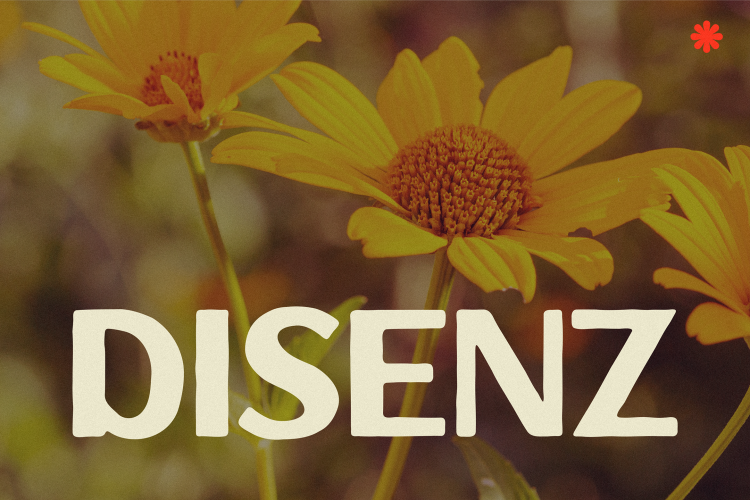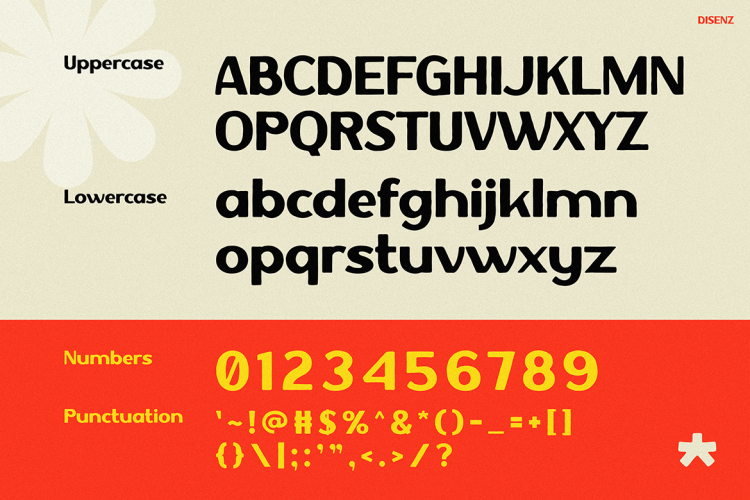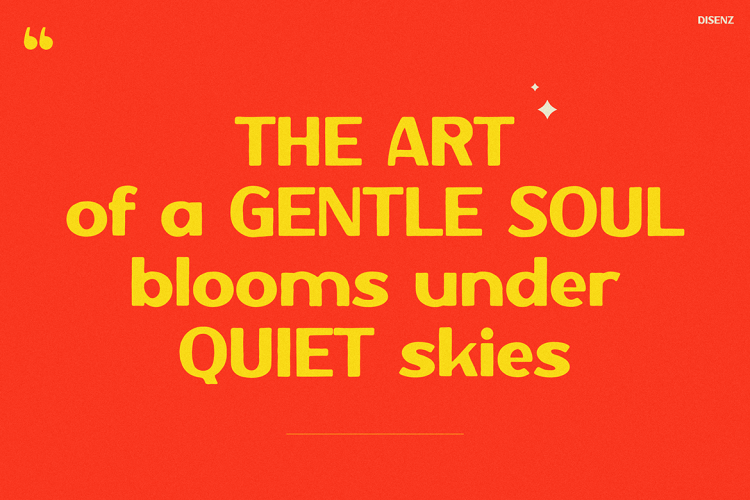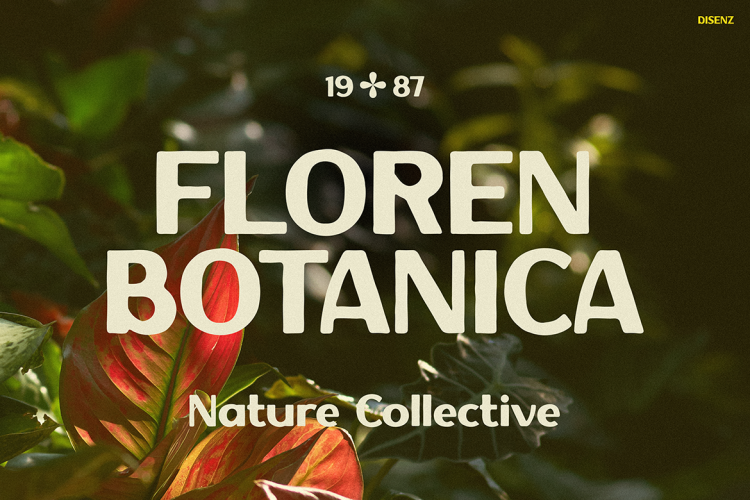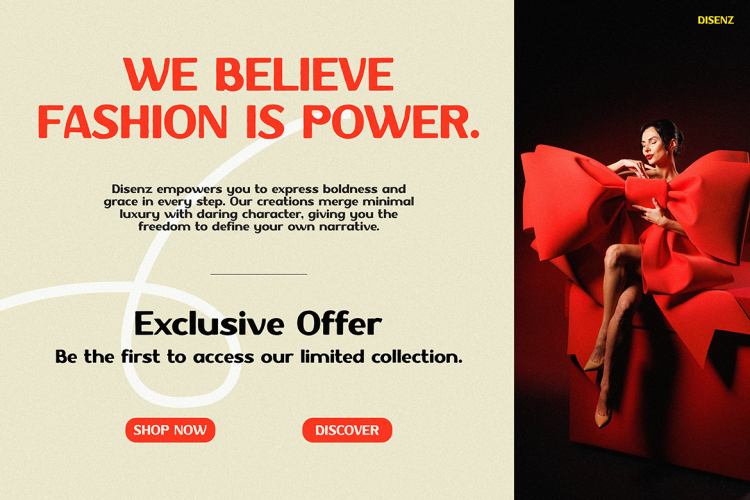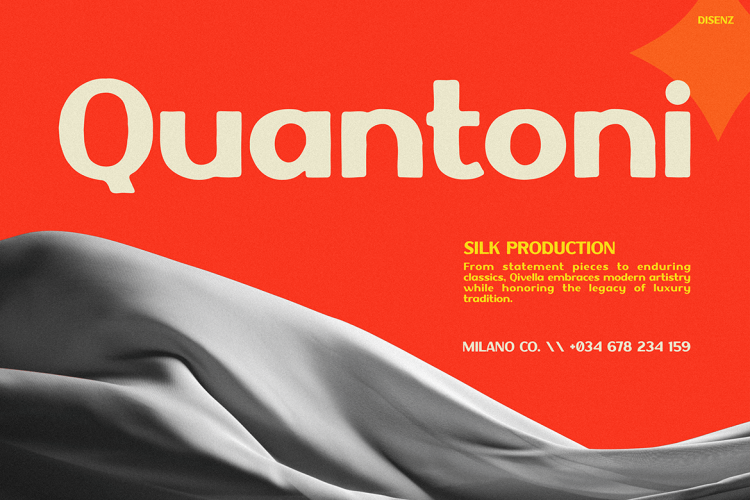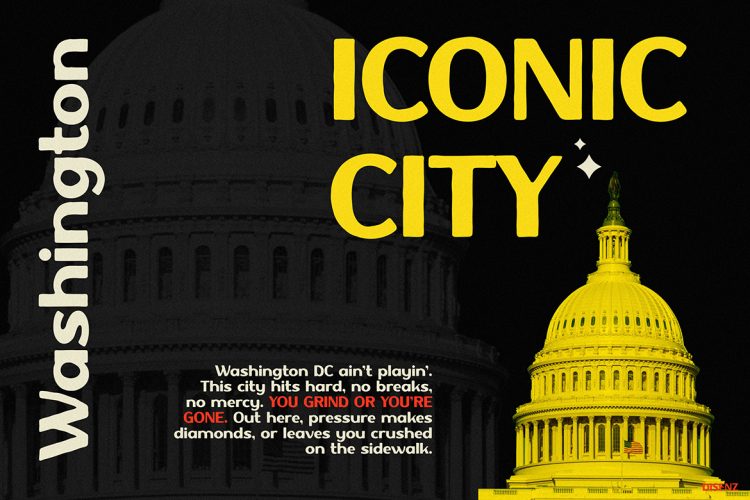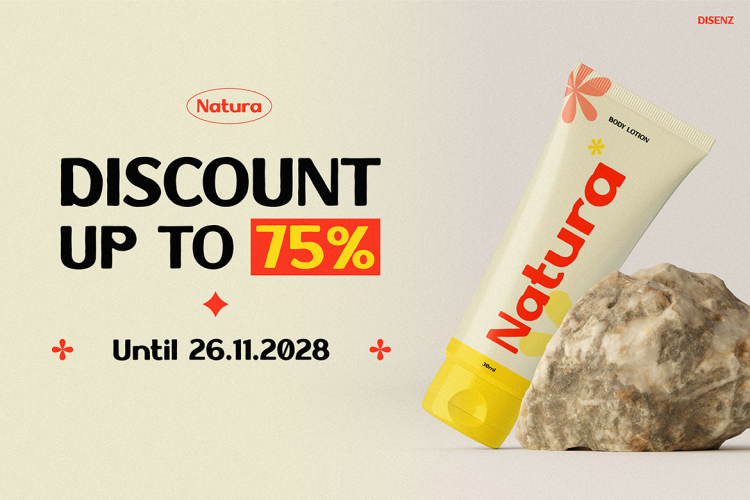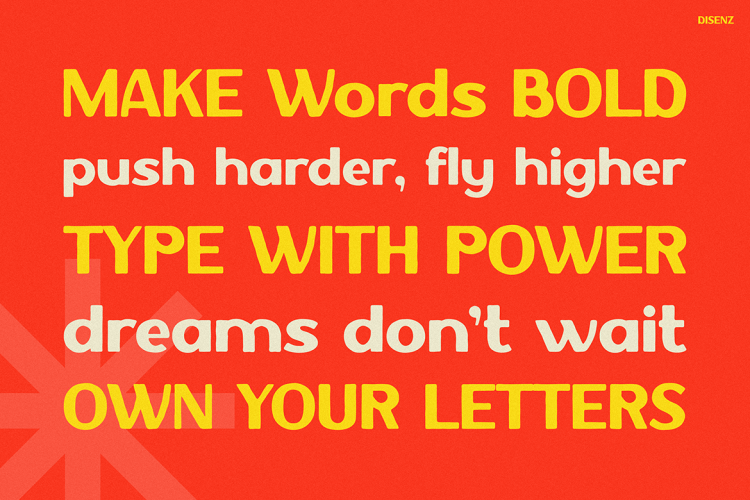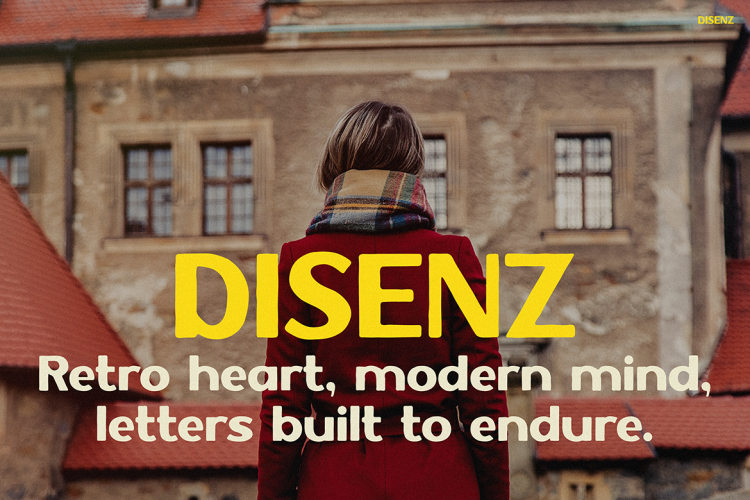
Retro Font DISENZ โ Bold Retro Elegance for Modern Visionaries
Retro Font DISENZ captures the essence of timeless design with a powerful, confident aesthetic. Inspired by the warmth of vintage typography and the clarity of modern minimalism, DISENZ stands out through its smooth curves, solid structure, and balanced proportions. Every letter radiates character, delivering an authentic retro vibe while maintaining excellent readability. Whether placed on bold headlines or subtle branding materials, this font instantly attracts attention with its nostalgic yet contemporary charm.
The fontโs design perfectly combines geometric precision and humanistic touches, creating a look that feels both strong and approachable. It draws inspiration from classic print posters, urban signage, and mid-century design languageโmaking it more than just a font, but a storytelling tool. DISENZ celebrates the beauty of handcrafted letters that feel alive, dynamic, and enduring, perfect for designers who want to convey strength, creativity, and authenticity in their visuals.
Who Is It Perfect For?
Retro Font DISENZ is ideal for creative professionals who want their work to stand out with personality. Itโs perfect for branding agencies, graphic designers, art directors, and marketing creatives looking for a font that commands attention without being overly complex. Fashion brands, editorial designs, and social media creators can use DISENZ to build visual identities that feel premium yet relatable.
This typeface also shines in packaging design, posters, advertising campaigns, and website headers. It works beautifully for retro-inspired businesses, music events, coffee brands, or lifestyle products that aim to blend nostalgia with innovation. The fontโs versatility makes it suitable for both digital and print use, allowing you to maintain consistent brand energy across platforms. With DISENZ, your design speaks in a tone thatโs bold, clear, and full of personality.
Why Youโll Love It
If youโre searching for a font that merges retro flair with modern strength, Retro Font DISENZ is your perfect match. It gives your projects a timeless appeal and helps your message stand out with confidence. Each letter feels intentionally crafted, designed to express creativity and sophistication. Bring your ideas to life with DISENZโbecause great design starts with great typography.
Let DISENZ add a powerful rhythm to your words and turn your visuals into unforgettable experiences. Step into the world of bold eleganceโget DISENZ today and make your typography shine with enduring style.